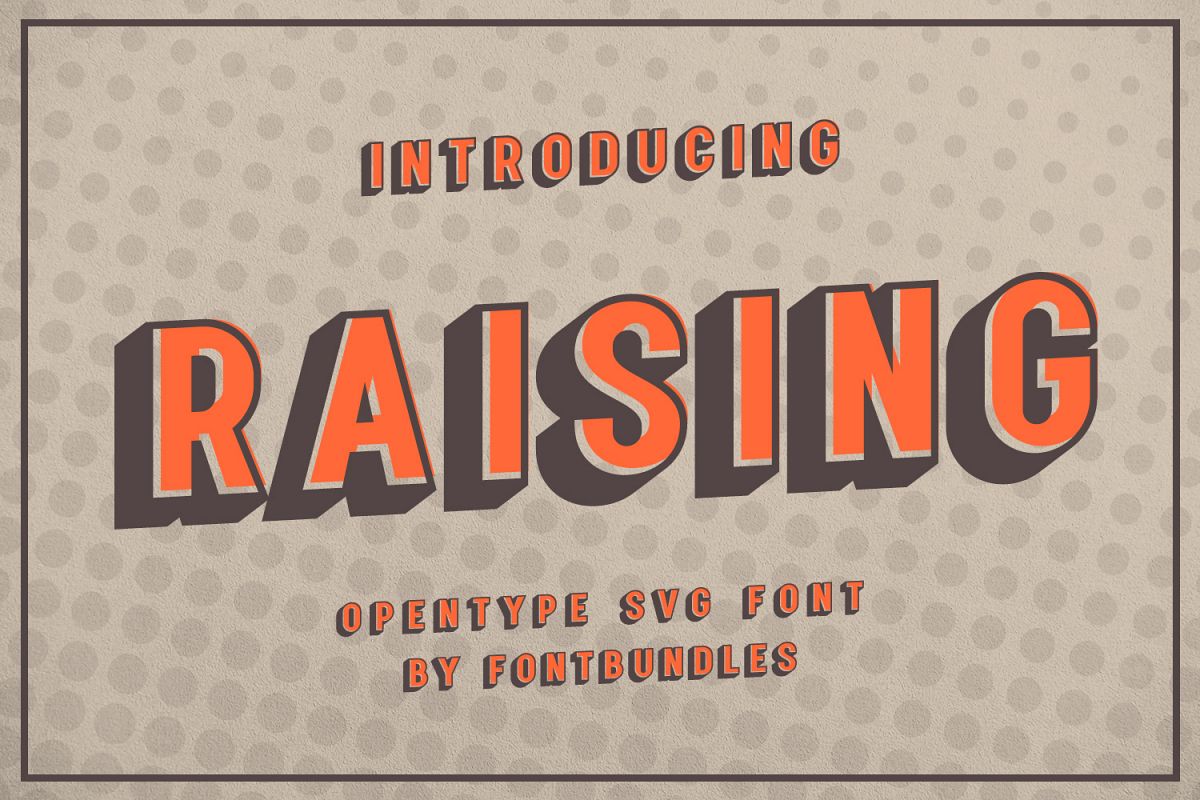
Raising - SVG Font
Raising is a extrude opentype SVG font. Perfect for Logo, greeting cards, quotes, posters, branding, name card, stationary, design title, blog header, art quote, typography art, modern envelope lettering or book design.